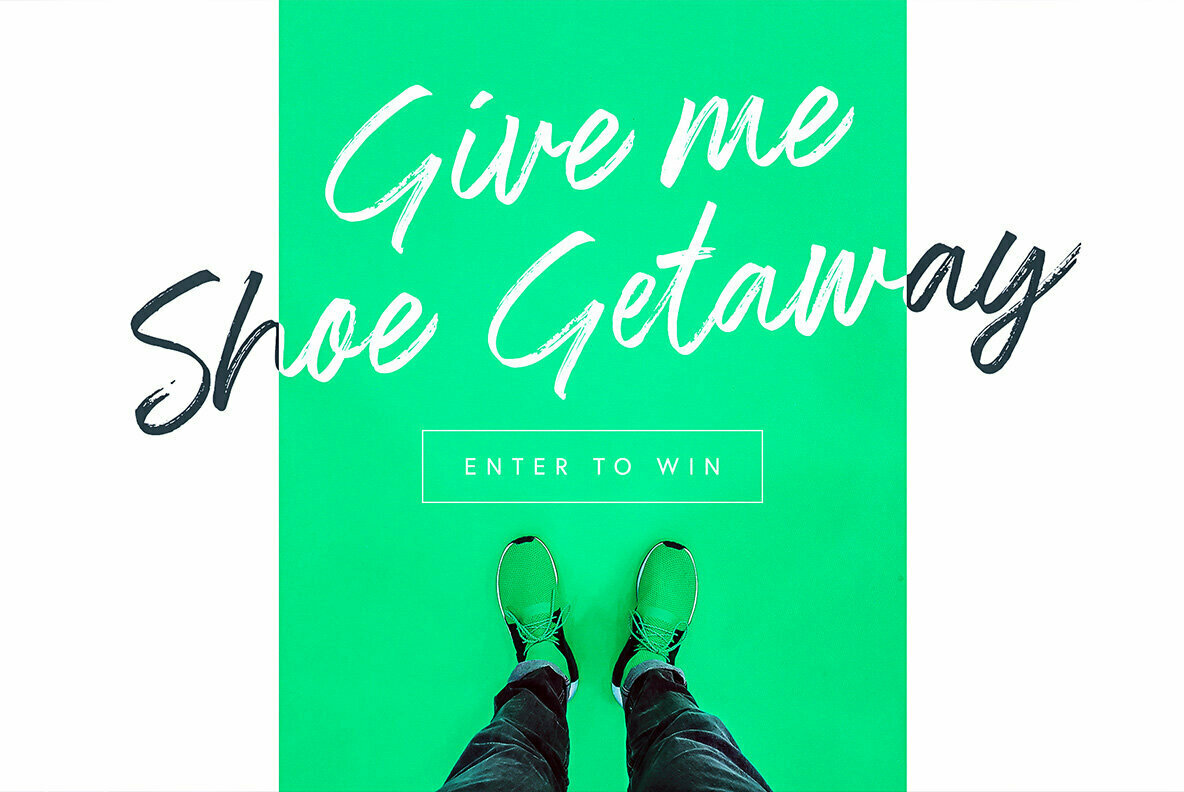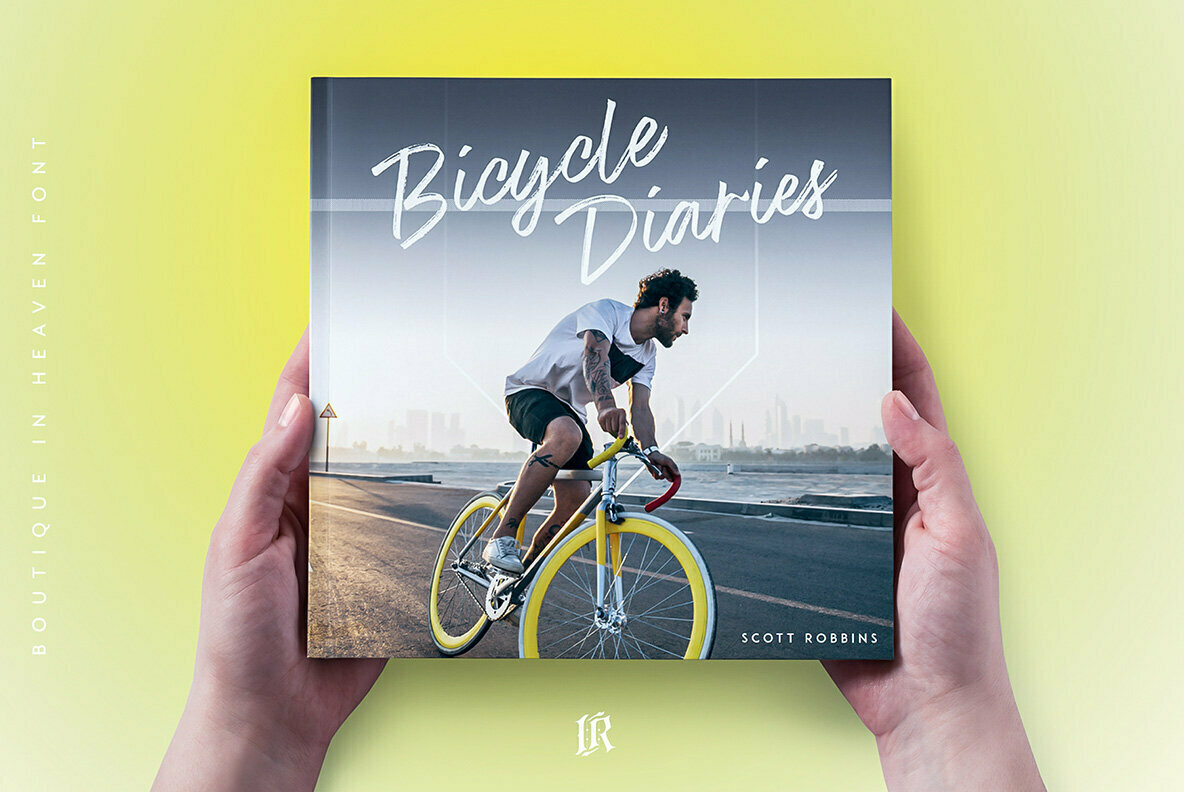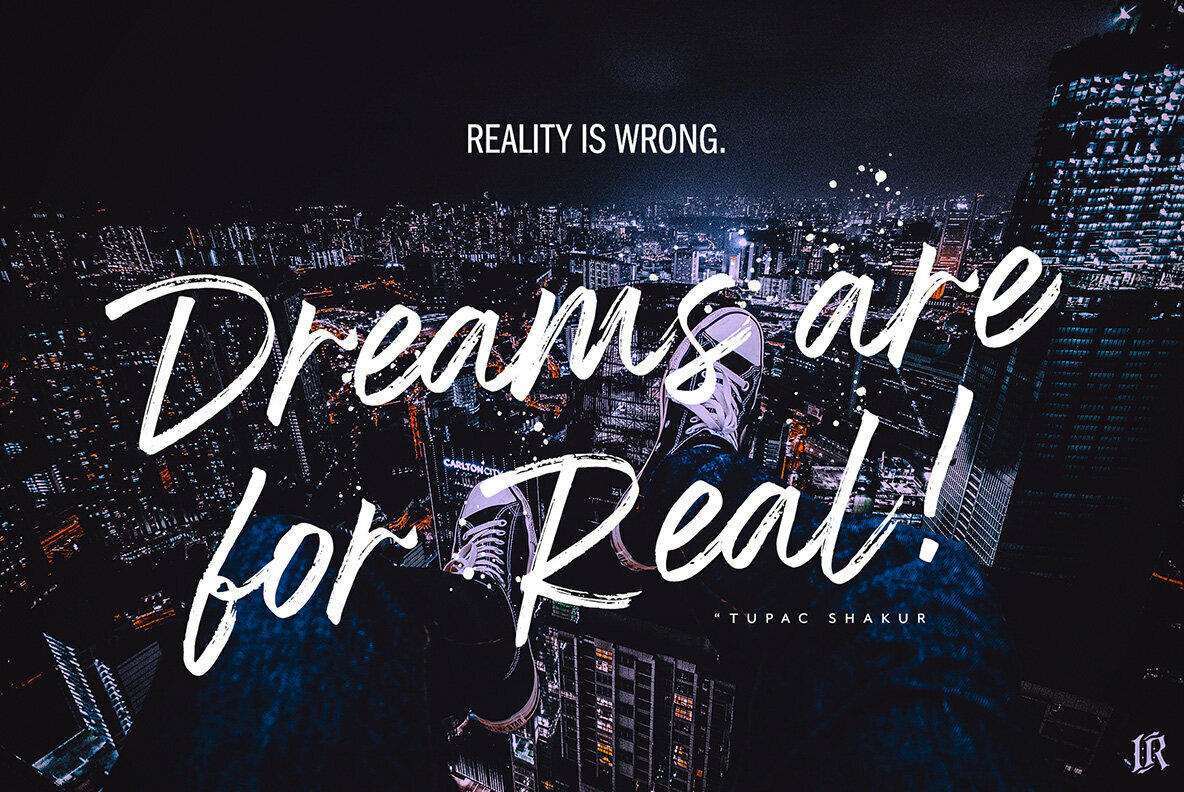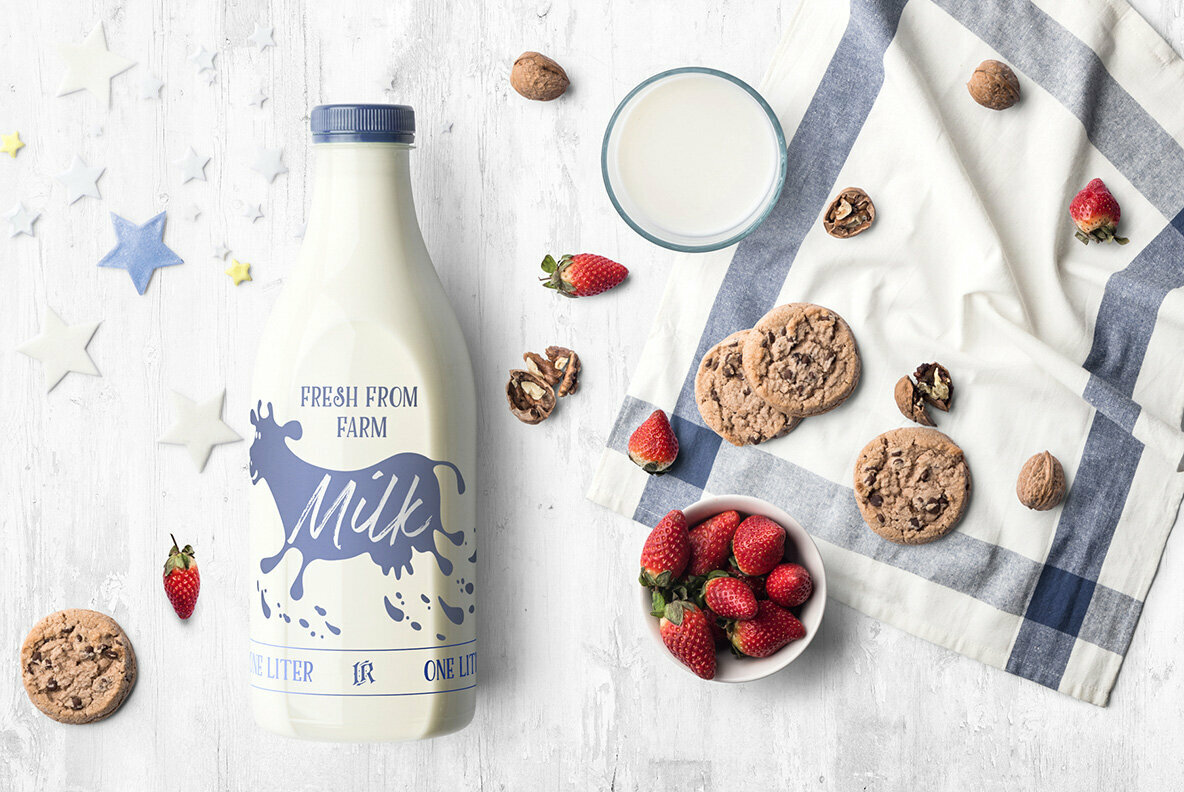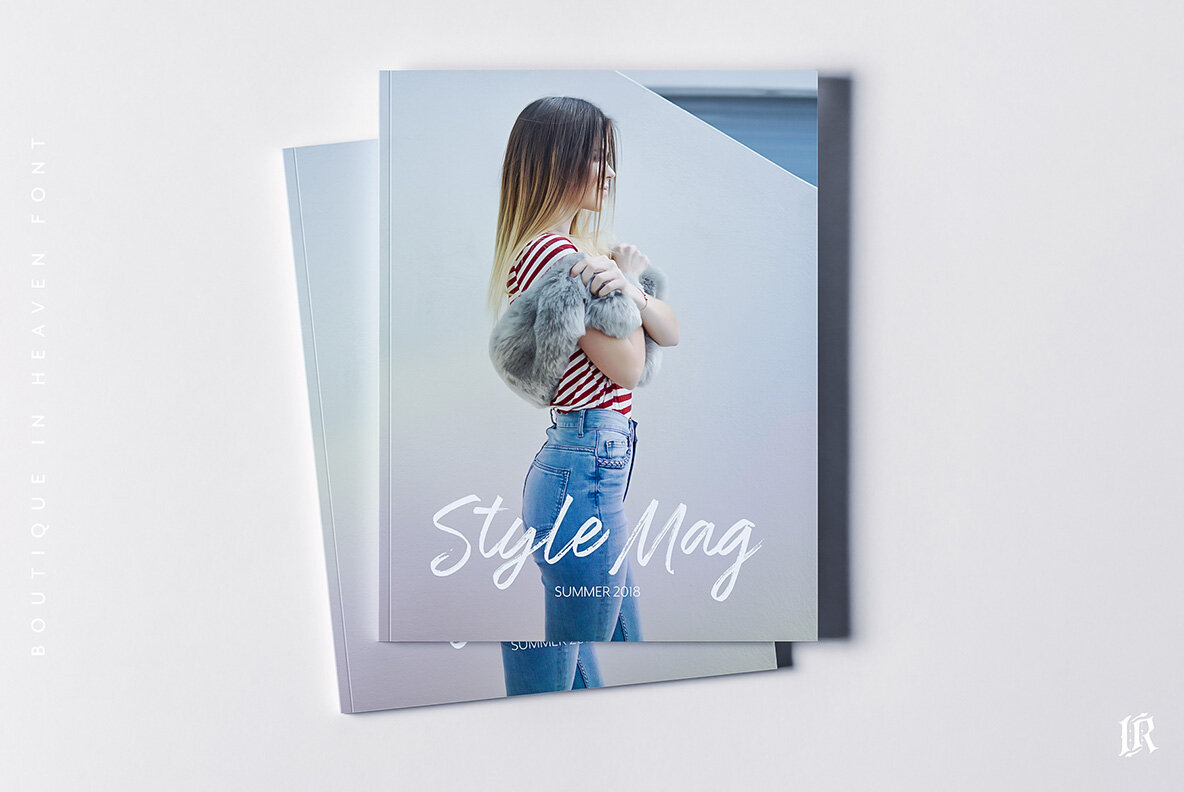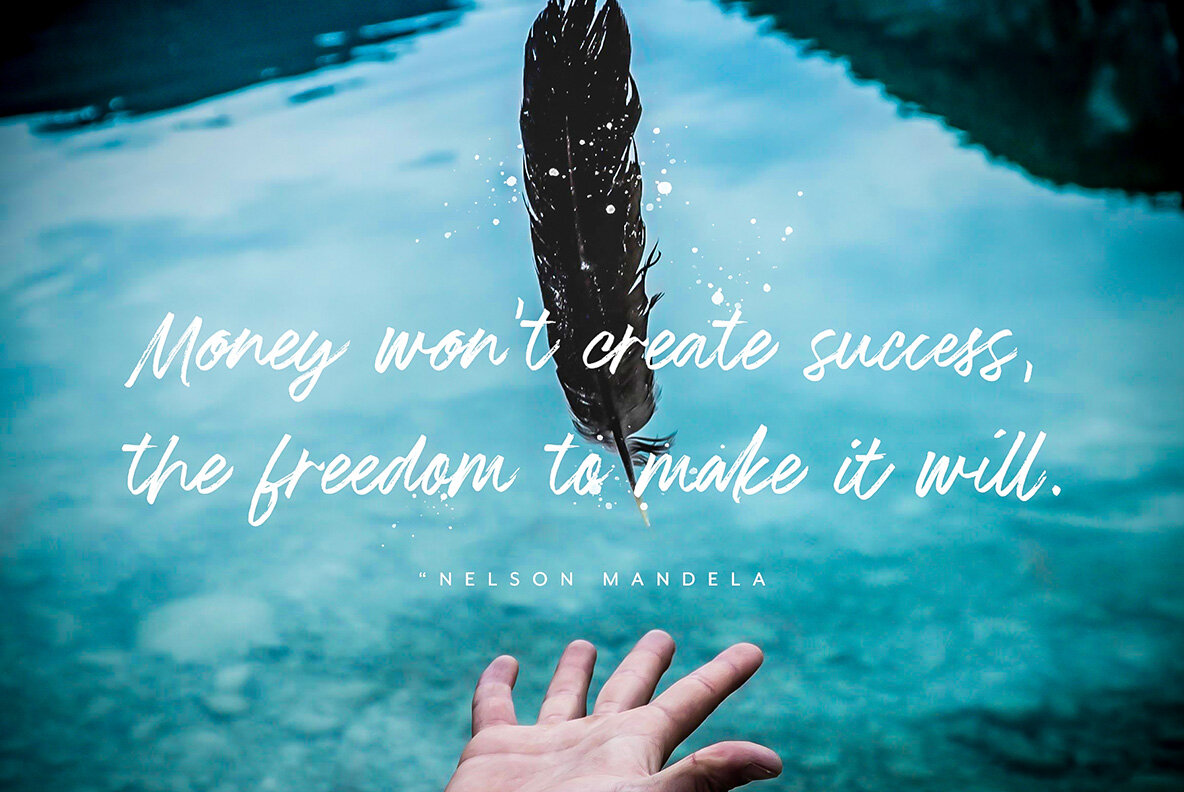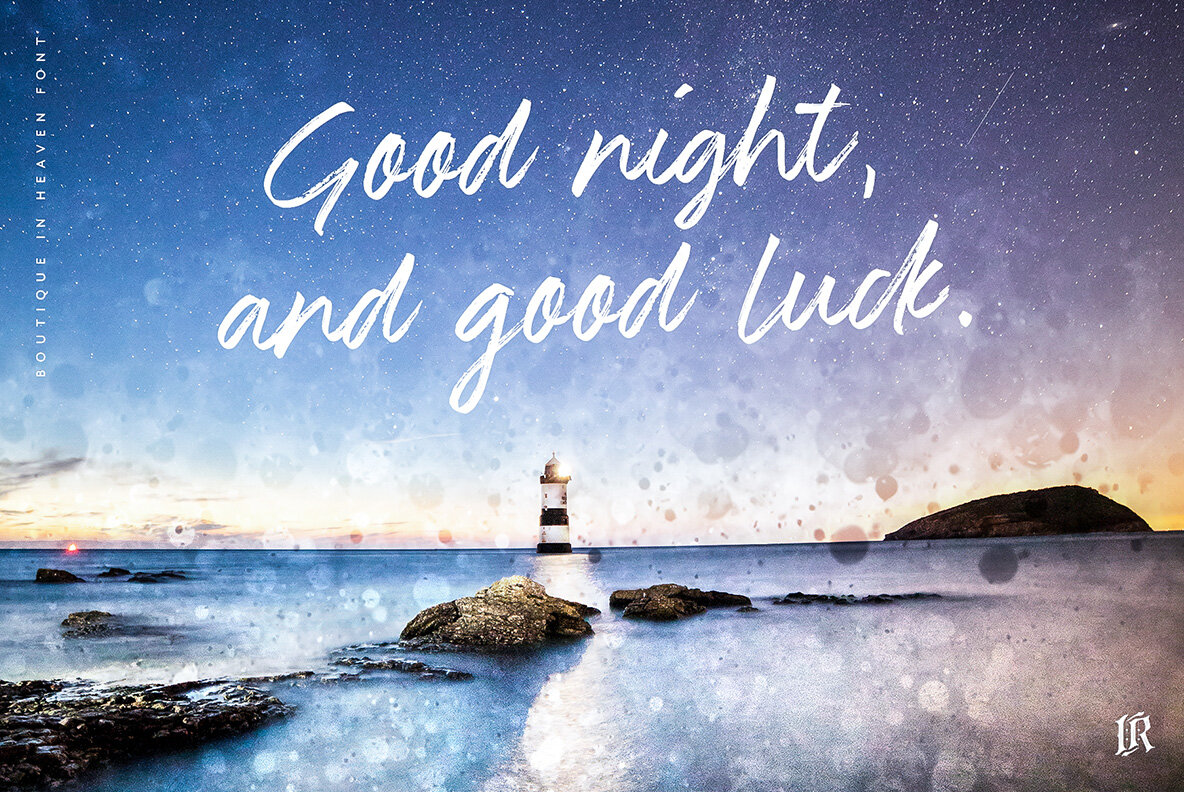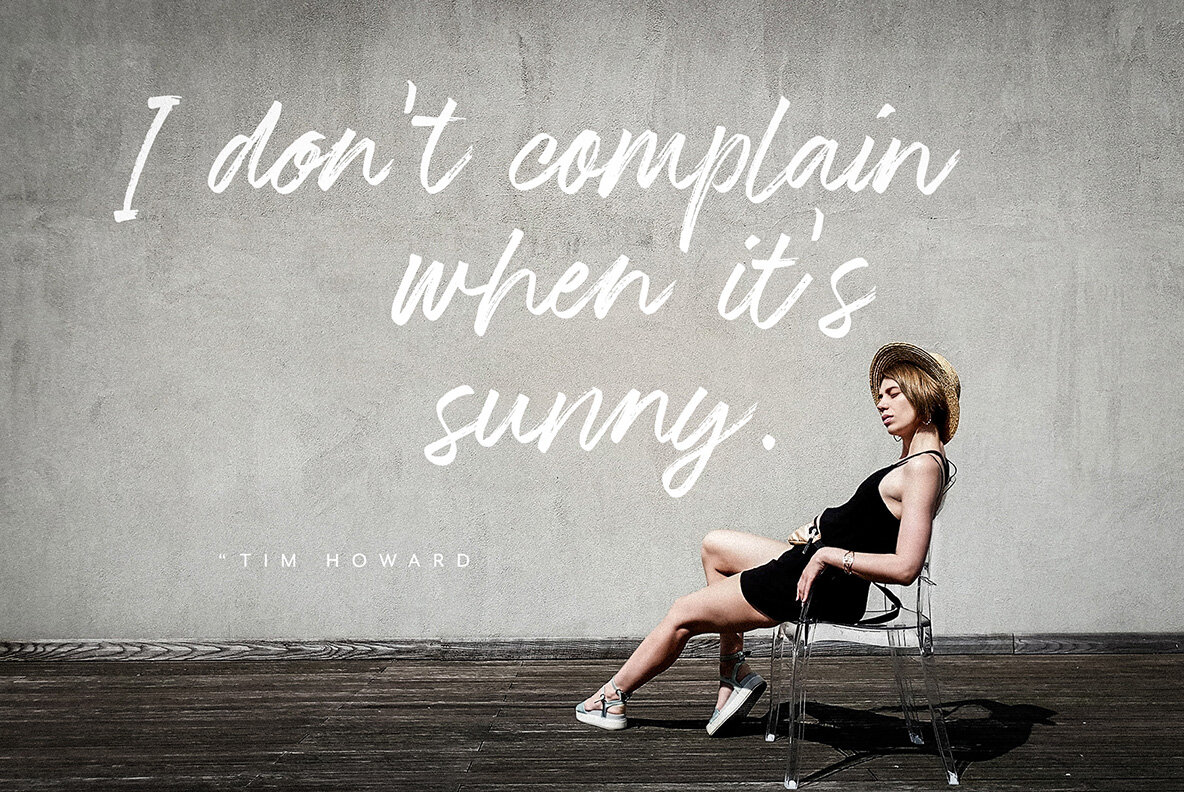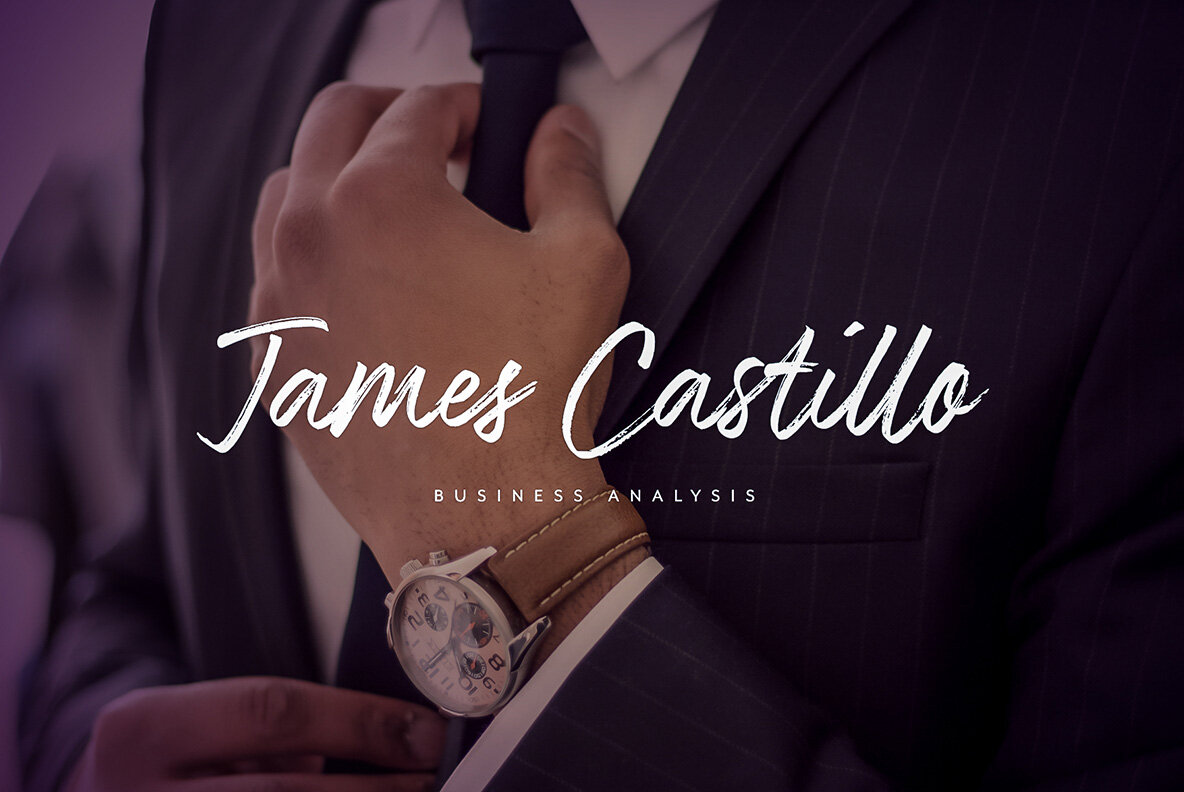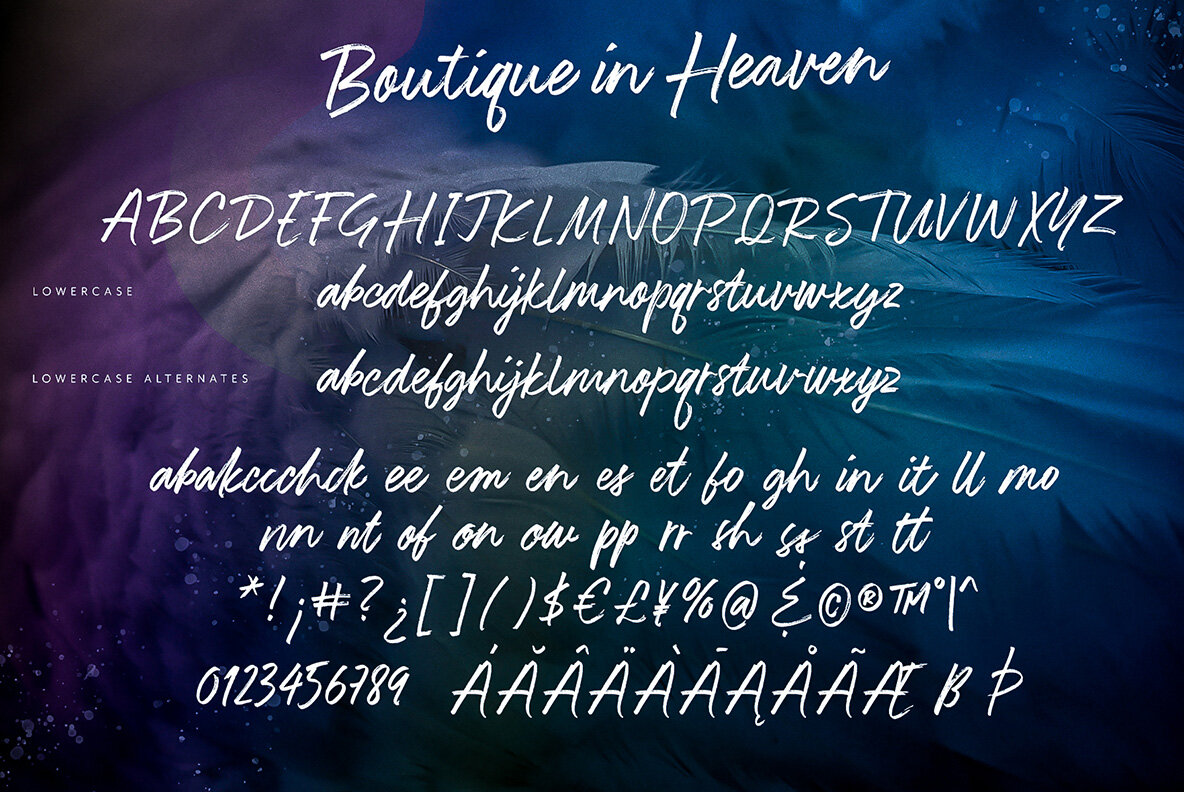
Boutique in Heaven Font
Boutique in Heaven is casual brush font with multilingual support. Is ideal for t-shirts, magazines, phone covers, social media, restaurant menus, greeting cards, invitations, weddings, headers and many more. This brush font comes with a complete set of lowercase and uppercase characters, a large range of punctuation ligatures, numerals, lowercase alternates and and multilingual support.